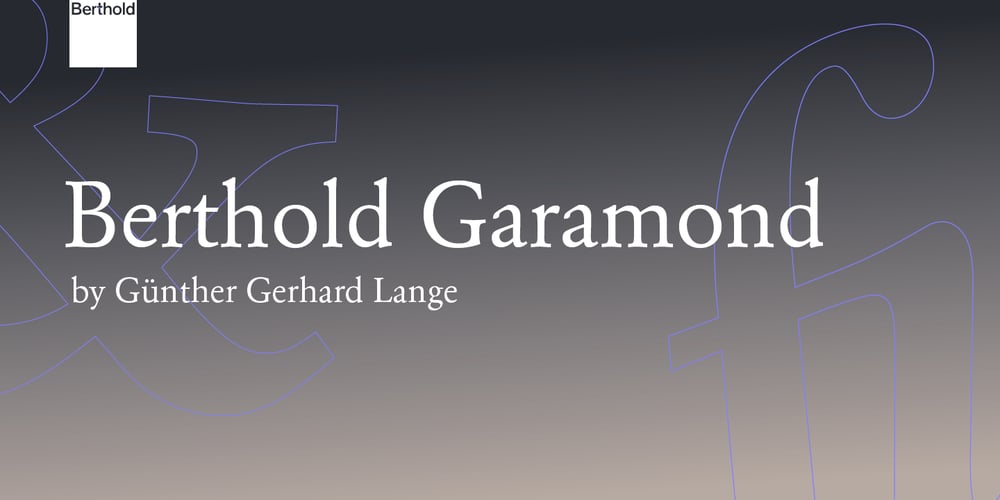
Berthold Garamond Font Family was designed by Günter Gerhard Lange and published by Berthold. Berthold Garamond contains 8 styles and family package options. Claude Garamond began as an apprentice to a Paris printer in the early 1500s. Later he was one of the first to specialize in designing and casting type at a time when it was most common for those functions to be melded with that of printer and publisher. His designs became standards in 16th century Europe and have inspired countless versions over the centuries. As is his practice, Günter Gerhard Lange studied the original Garamond prints extensively before adapting his own interpretation, released by Berthold in 1972. Under the direction of Lange, small caps, old style figures and additional condensed versions will be added to the family in 2000, making Berthold Garamond an extensive and versatile family well suited for a variety of applications.